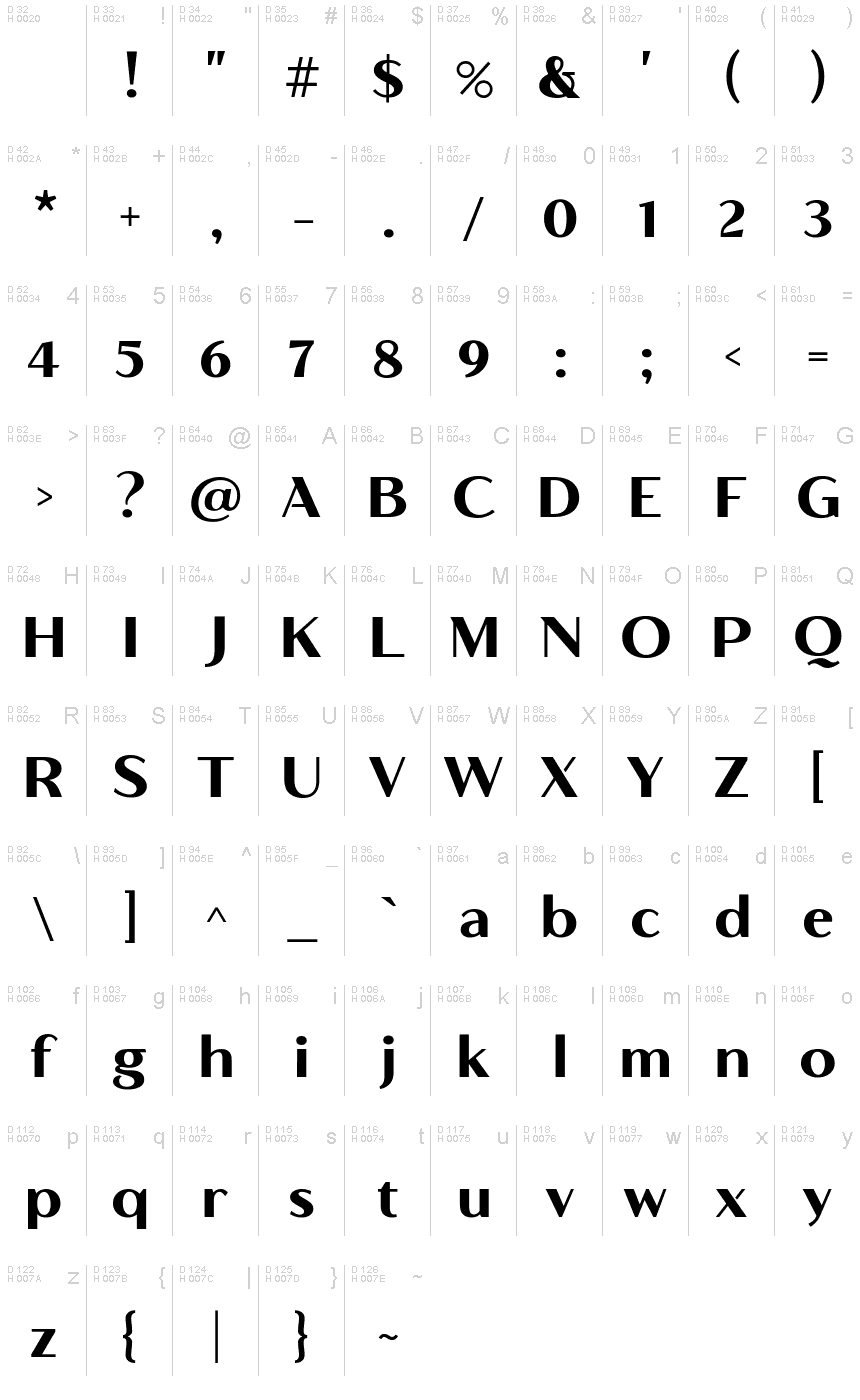
Berumias Regular
Berumias, crafted by Roland Huse Design, stands as a captivating sans serif font that exudes bold confidence. Its robust weight and clear lines make it a standout choice for impactful headings and striking display use. Berumias inherits its structural DNA from the display font Beaumaris yet carves out its distinct personality through sans serif simplicity.
Visually, Berumias offers a modern aesthetic that captures attention without overwhelming the senses. The simplicity of sans serif is elevated by the font's substantial weight, resulting in a harmonious balance of readability and assertiveness. It's this balance that makes Berumias versatile across various creative applications—from branding to advertising, editorial design to digital interfaces.
With its origin story rooted in the rearrangement of letters from its predecessor Beaumaris—culminating in an original title devoid of predefined meaning—Berumias invites designers to infuse their own creativity and narrative into their projects. This typeface is not just about what you see; it's about what you can imagine it to be within your work's context.
Whether for bold statements or subtle sophistication, Berumias is ready to elevate your design with its strong presence and adaptable style.
This font contains all Eastern, Central and Western European accented letters and special characters along with European Cyrillic.